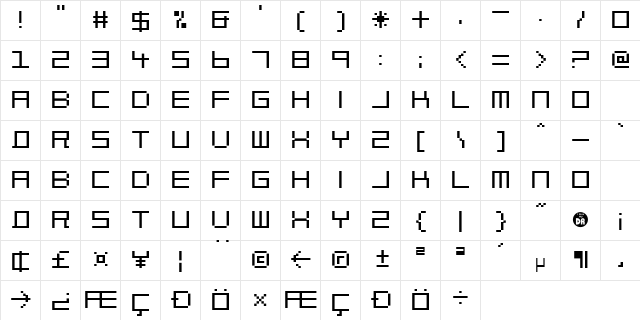
Block Out Normal
Design Context for Block Out Typeface
Block Out takes a measured approach to typography — its balanced proportions and neutral character make it a reliable workhorse for both digital and print work.
Pro Tip: Pair Block Out with a font of contrasting weight or personality to build a more expressive typographic hierarchy.